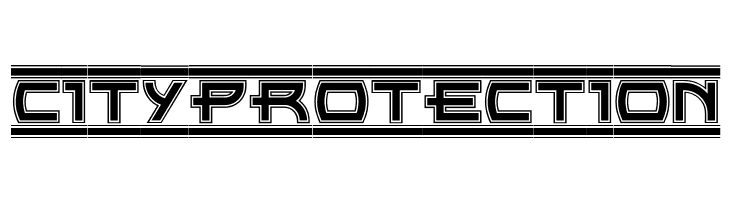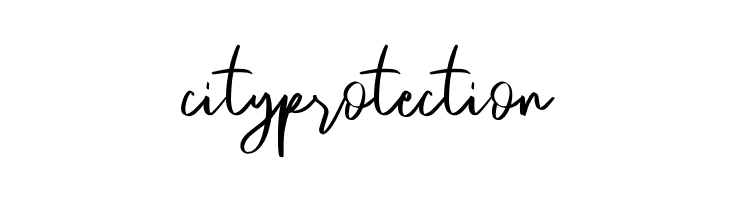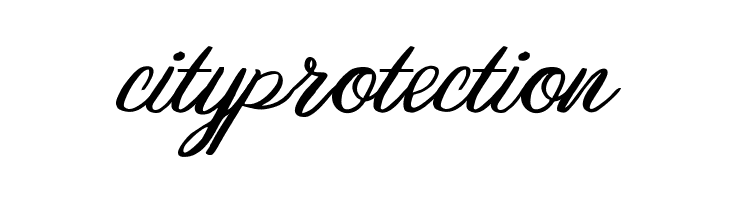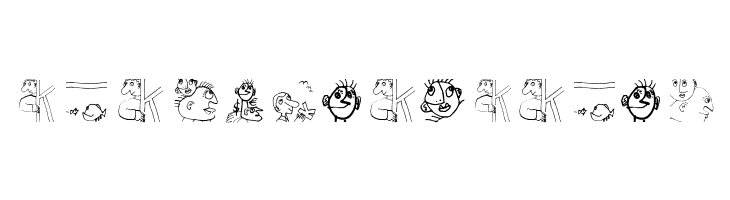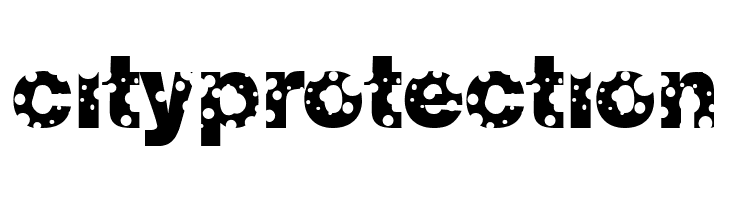
• Embroidery
A decorative font resembling cross-stitch embroidery with a handcrafted feel.
• Emerisa Free
A lively, expressive script font with a handwritten feel and medium contrast.
• Emerland FREE
An elegant script font with flowing, cursive letters and ornate details.
• Emissary
A bold, futuristic font with sharp angles and geometric shapes.
• Emissary 3D
A bold, 3D geometric font with a futuristic and industrial look.
• Emissary 3D Italic
A bold, 3D italic font with a futuristic and dynamic design.
• Emissary Condensed
A bold, geometric, and condensed font with a futuristic style.
• Emissary Condensed Italic
A bold, condensed italic font with a modern, geometric style.
• Emissary Expanded
A bold, expanded, and futuristic font with sharp, angular edges.
• Emissary Expanded Italic
A bold, italic, and expanded font with a futuristic and dynamic style.
• Emissary Halftone
A bold, futuristic font with a halftone effect and geometric design.
• Emissary Halftone Italic
A bold, italicized font with a halftone effect and futuristic style.
• Emissary Italic
A bold, italic font with a futuristic and dynamic style.
• Emissary Laser
A bold, futuristic font with sharp angles and a tech-inspired design.
• Emissary Laser Italic
A bold, italicized font with a futuristic and angular design.
• Emissary Leftalic
A bold, angular, and futuristic font with a slanted orientation.
• Emissary Scanlines
A futuristic font with bold, geometric shapes and horizontal scanlines.
• Emissary Scanlines Italic
A futuristic italic font with a scanline effect, perfect for tech-themed designs.
• Emissary Super-Italic
A bold, italicized font with a dynamic and futuristic style.
• Emkabats
A playful and artistic font with cartoonish character illustrations.
• Emma Sophia
• Emmenthaler Normal